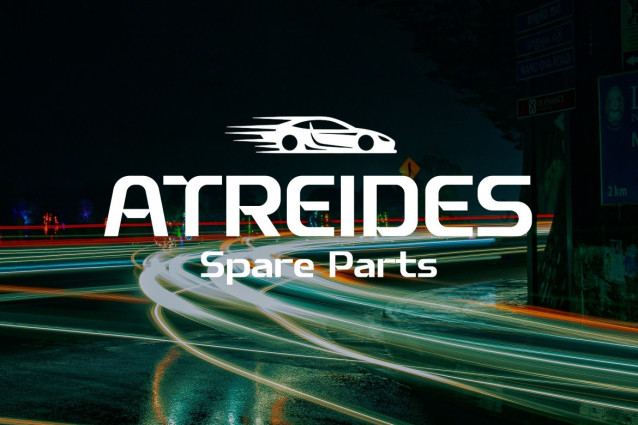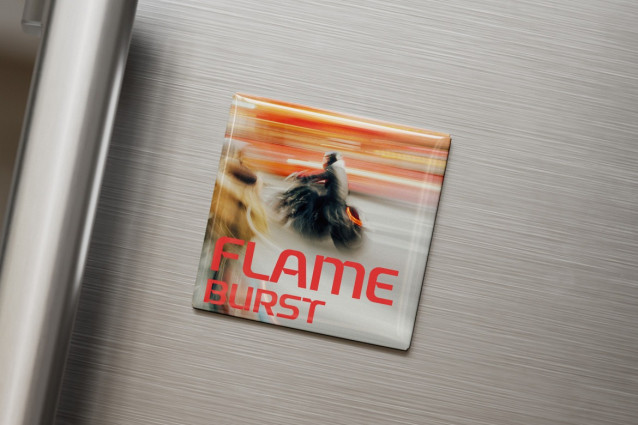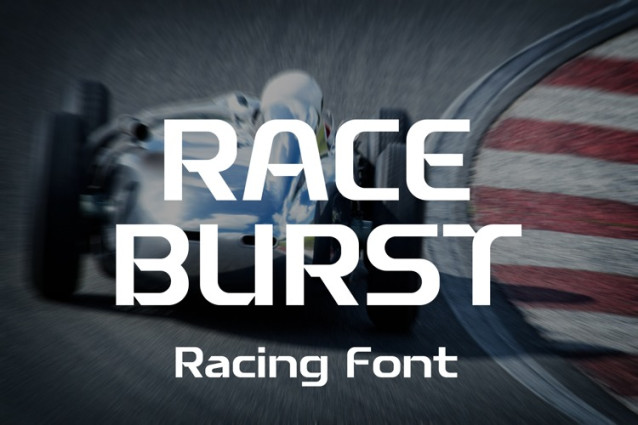
Lastcar Font
Lastcar Font is a high-velocity display font engineered to capture the raw energy and aerodynamic precision of professional motorsports. With its wide, aggressive stance and forward-leaning motion, this font is the perfect choice for projects that demand speed, power, and a cutting-edge industrial feel.
Designed for maximum impact at high speeds, Raceburst features sleek curves and sharp terminals that mimic the lines of a high-performance race car. It is an ideal solution for automotive branding, esports team identities, sports event promotion, and any design that needs a bold, energetic presence.